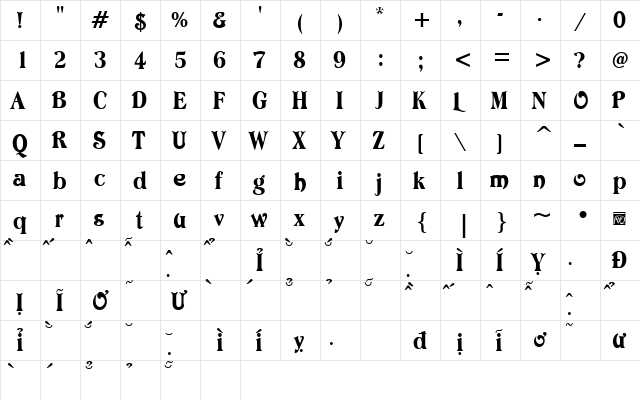
VfFree42 Regular
Design Context for VfFree42 Typeface
VfFree42 takes a measured approach to typography — its balanced proportions and neutral character make it a reliable workhorse for both digital and print work.